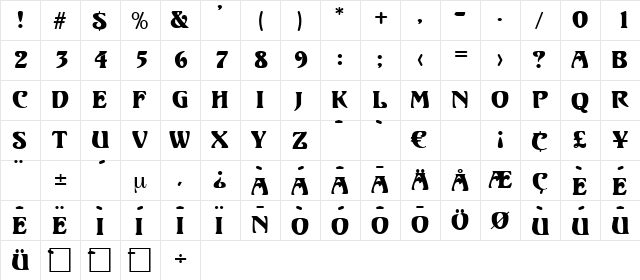
Sparta Regular
Design Context for Sparta Typeface
Sparta is a composed and adaptable typeface that performs quietly and consistently across a wide range of design contexts.
Pro Tip: Use Sparta in both headline and body roles to test its range before committing to a single application.